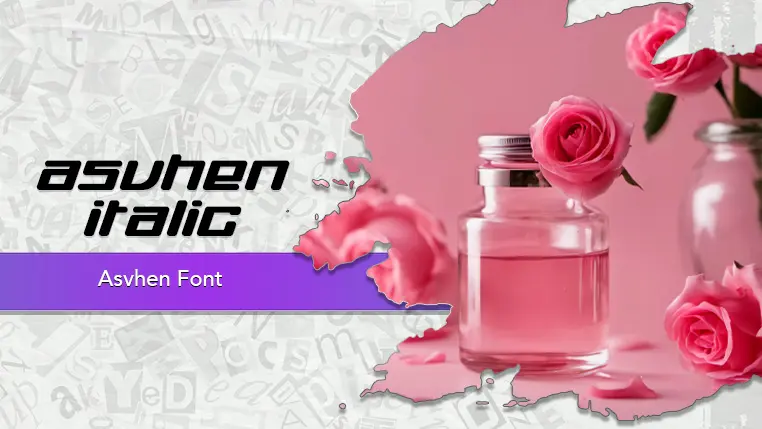
The Asvhen font family may be ideal for you if you enjoy working on an artistic design project. The lively, expressive look of this typeface, which was created by Uncarving Nation, makes it ideal for Excellent for creating unique, memorable logos and brand identities for businesses that want to convey modernity, elegance, creativity, or a specific niche style. Also Ideal for making headlines, article titles, posters, and banners pop. Its unique forms would draw immediate attention. Could be very effective for clothing lines, beauty products, or lifestyle brands seeking a sophisticated, trendy, or exclusive feel. For impactful cover titles, feature headlines, or stylistic quotes within magazines and online articles. Also you can use on Packaging for products that want to stand out on the shelf with a distinct, premium, or artistic aesthetic. and other light-hearted visual projects.
Italic are the one primary font styles of the Asvhen font family. You may build dynamic, visually appealing text layouts with the distinct flair that each style offers. With crisp, readable lines and a relaxed tone.